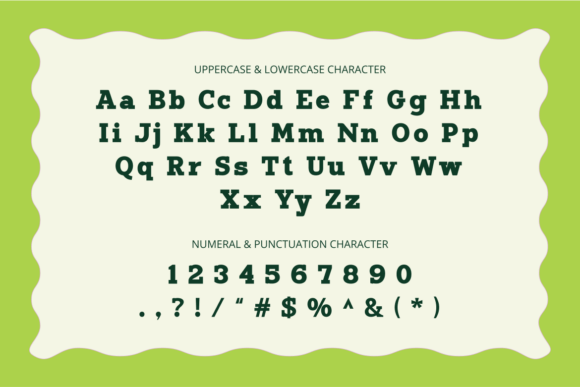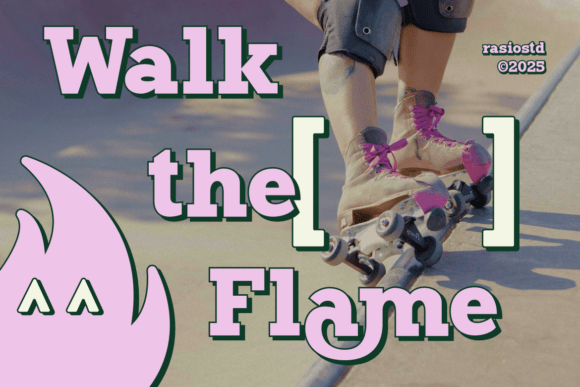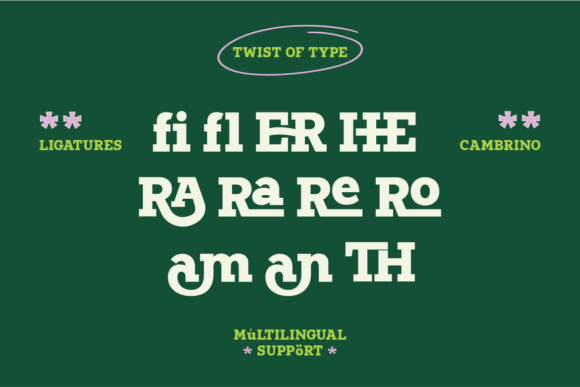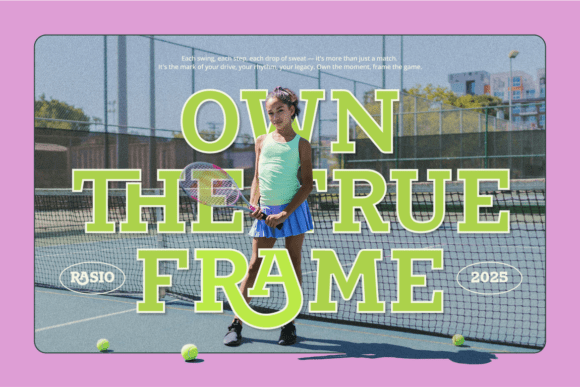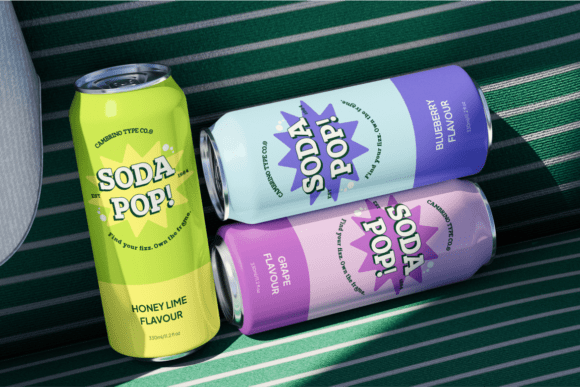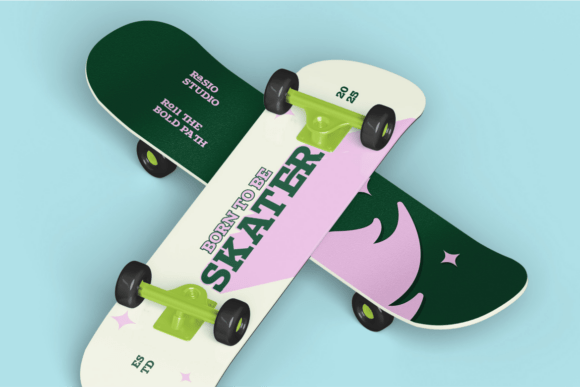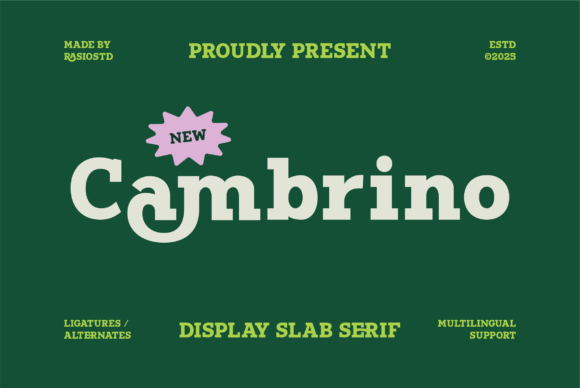
Unleash the Power of Cambrino Font: Elevate Your Headlines with Confidence and Character
In the world of typography, a font can make or break the visual identity of a brand. If you’re looking for a display slab serif that commands attention and exudes confidence, look no further than Cambrino. This robust yet refined font is specifically designed to inject character into your headlines, making it the perfect choice for bold editorial headers, craft brewery branding, quirky packaging, and high-impact poster design.
The Unique Charm of Cambrino
Cambrino’s distinctiveness lies in its masterful blend of sturdy, architectural slabs and softened unique ligatures and alternates. This thoughtful combination gives the font a “new vintage” aesthetic that strikes the perfect balance between friendliness and authority. Whether you’re aiming to create a statement piece or add a touch of sophistication to your design, Cambrino’s versatile charm makes it an excellent choice.
Multilingual Support and Extensive Customization
One of the standout features of Cambrino is its extensive multilingual support. This means that designers can experiment with a wide range of languages and scripts, pushing the boundaries of creative expression. Additionally, the font boasts a rich collection of creative glyphs, allowing for meticulous customization. With Cambrino, every word can feel like a custom-designed logo, tailored to perfection to suit your brand’s unique voice and style.
Optimal Use Cases for Cambrino
So, where can Cambrino make the most impact? Here are some ideal scenarios:
- Bold Editorial Headers: Use Cambrino to create eye-catching headlines that demand attention. Its slab serif design and unique ligatures ensure that your titles stand out, drawing readers into your story.
- Craft Brewery Branding: Cambrino’s blend of ruggedness and sophistication makes it a perfect fit for craft brewery logos and branding. It conveys a sense of artisanal quality and authenticity, essential for appealing to beer connoisseurs.
- Quirky Packaging: Add a touch of whimsy and personality to your product packaging with Cambrino. Its distinctive character makes it ideal for brands looking to stand out on crowded store shelves.
- High-Impact Poster Design: Whether you’re promoting an event, product, or cause, Cambrino can help you create visually stunning posters that grab attention and leave a lasting impression.
Why Designers and Crafters Love Cambrino
Designers and crafters appreciate fonts that offer both aesthetic appeal and practical versatility. Cambrino checks all the boxes:
- Ease of Use: Despite its sophisticated look, Cambrino is surprisingly easy to use, even for those new to design.
- Customization: With its extensive glyph library and multilingual support, Cambrino provides ample opportunities for creative experimentation.
- Uniqueness: In a sea of generic fonts, Cambrino stands out for its distinctive character and “new vintage” charm.
Cambrino font is more than just a display slab serif; it’s a tool for designers and crafters to inject confidence, character, and personality into their work. Its unique blend of rugged slabs and softened ligatures, coupled with extensive customization options, makes it an invaluable asset for anyone looking to elevate their design game. Whether you’re crafting bold editorial headers, branding a craft brewery, or designing eye-catching packaging, Cambrino is sure to make your work stand out. So why settle for ordinary when you can make a statement with Cambrino?